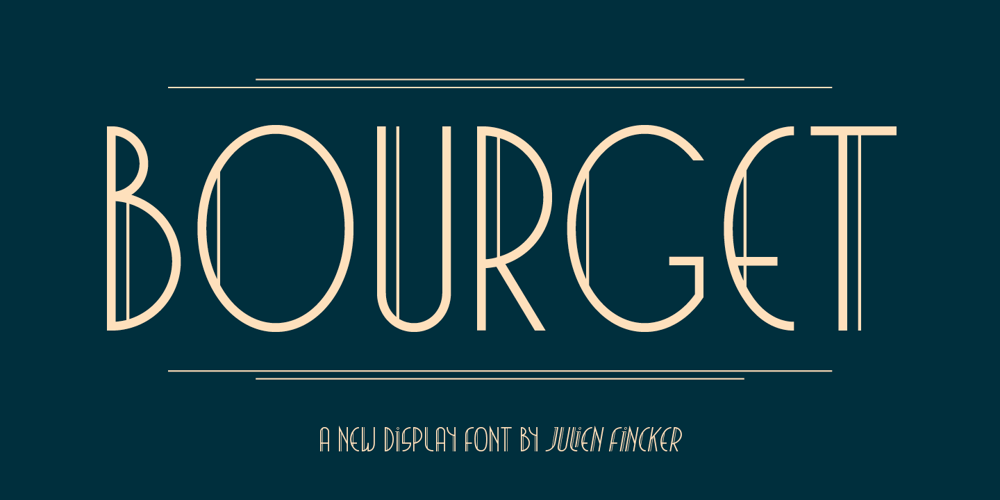
Bourget Font Family was designed by Julien Fincker and published by Fincker Font Cuisine. Bourget contains 2 styles and family package options. Bourget is a Display-Sans, which is inspired by the Art Déco Typography of the 1920´s, 1930´s years. It has a very characteristic and unique style by its thin line through every letter. The upright and italic versions have each 750+ Glyphs with Open Type Features, playful Ligatures and a lot of Alternates as Stylistic Sets. So there is a lot to discover and to play around with. Bourget is good to use for Branding, Signage, Packaging, Invitations, Advertising, Headlines, Displays, Magazines, Book titles or everything you want to use it for. Bourget has an extended character set to support 219 latin based languages in 212 countries and Pinyin.